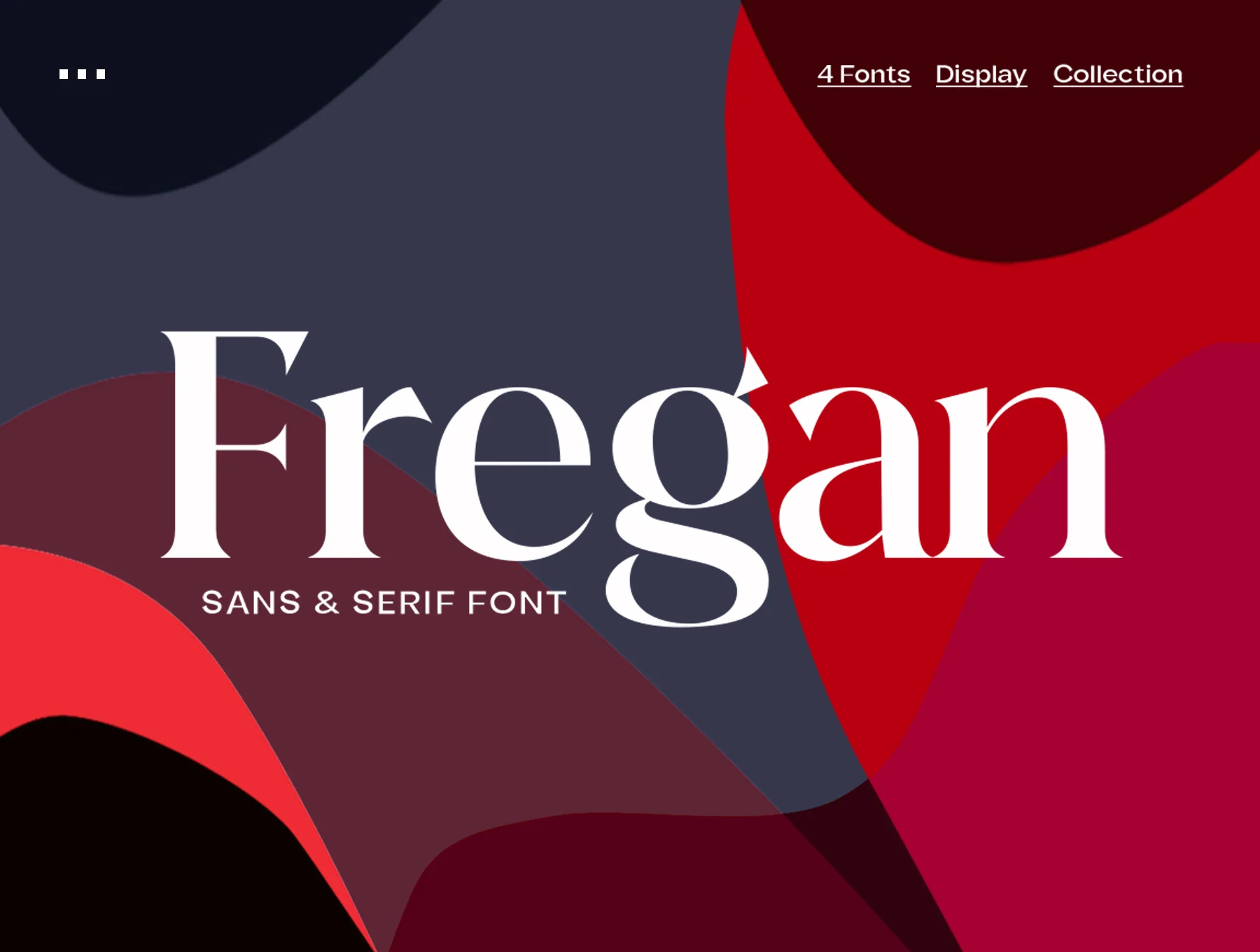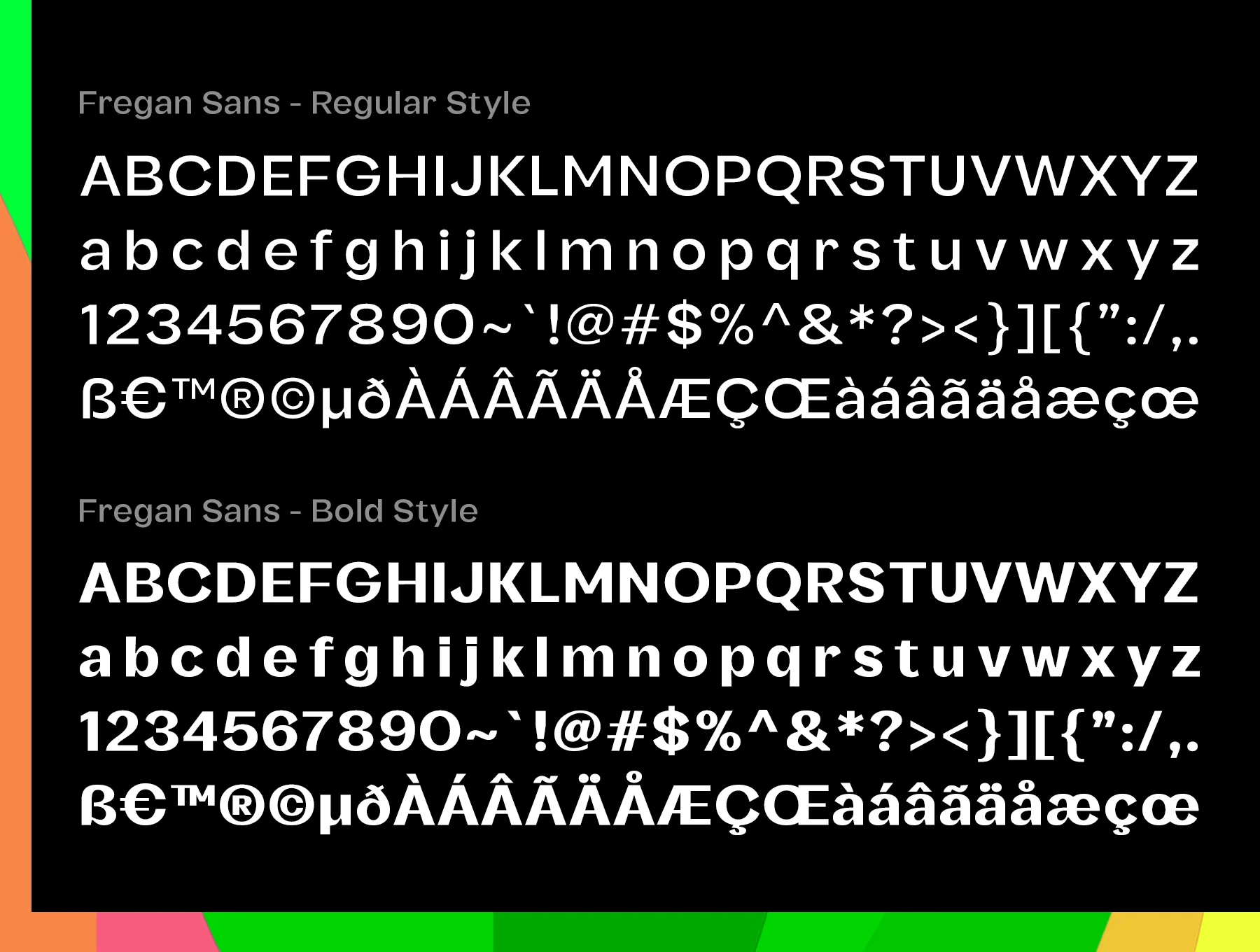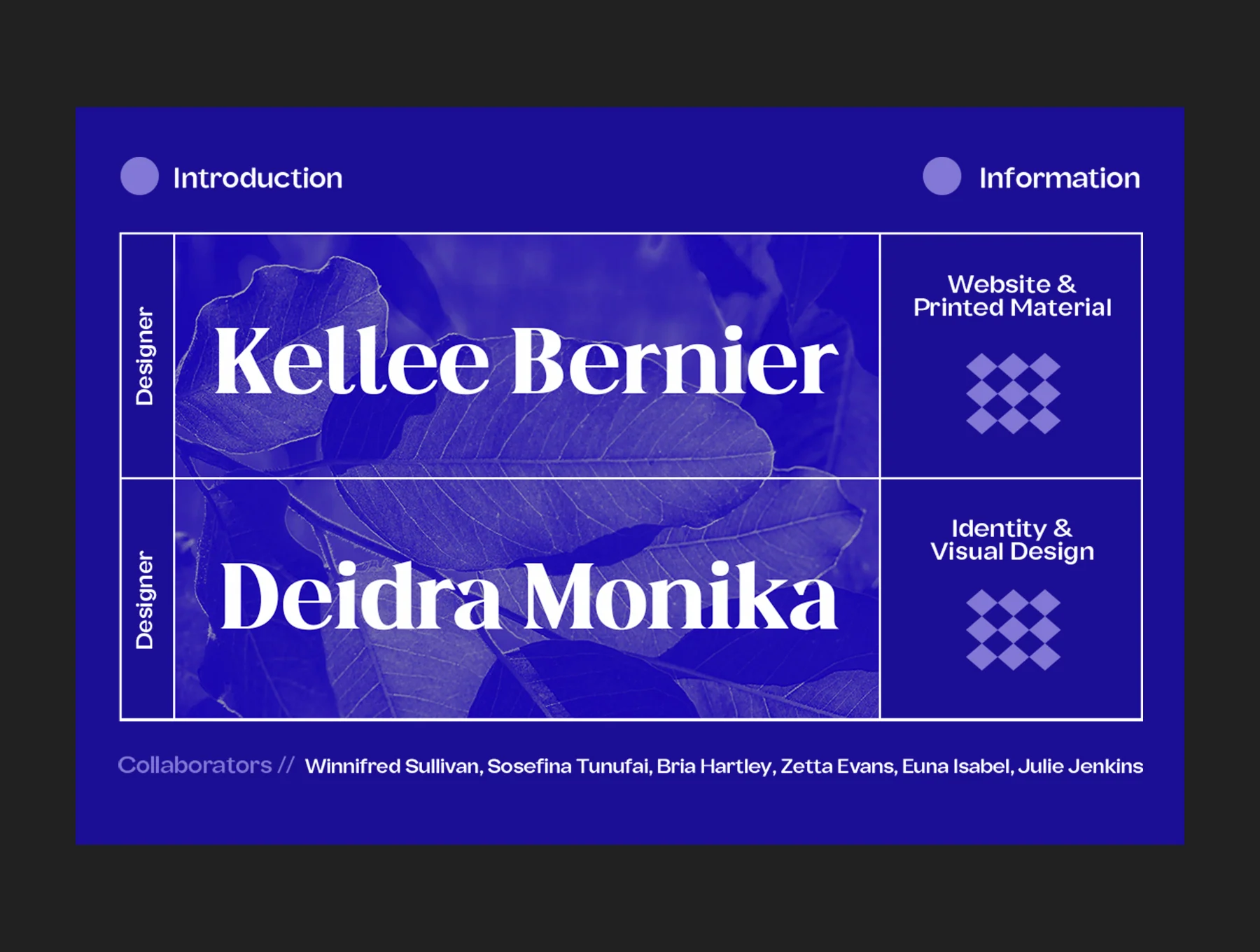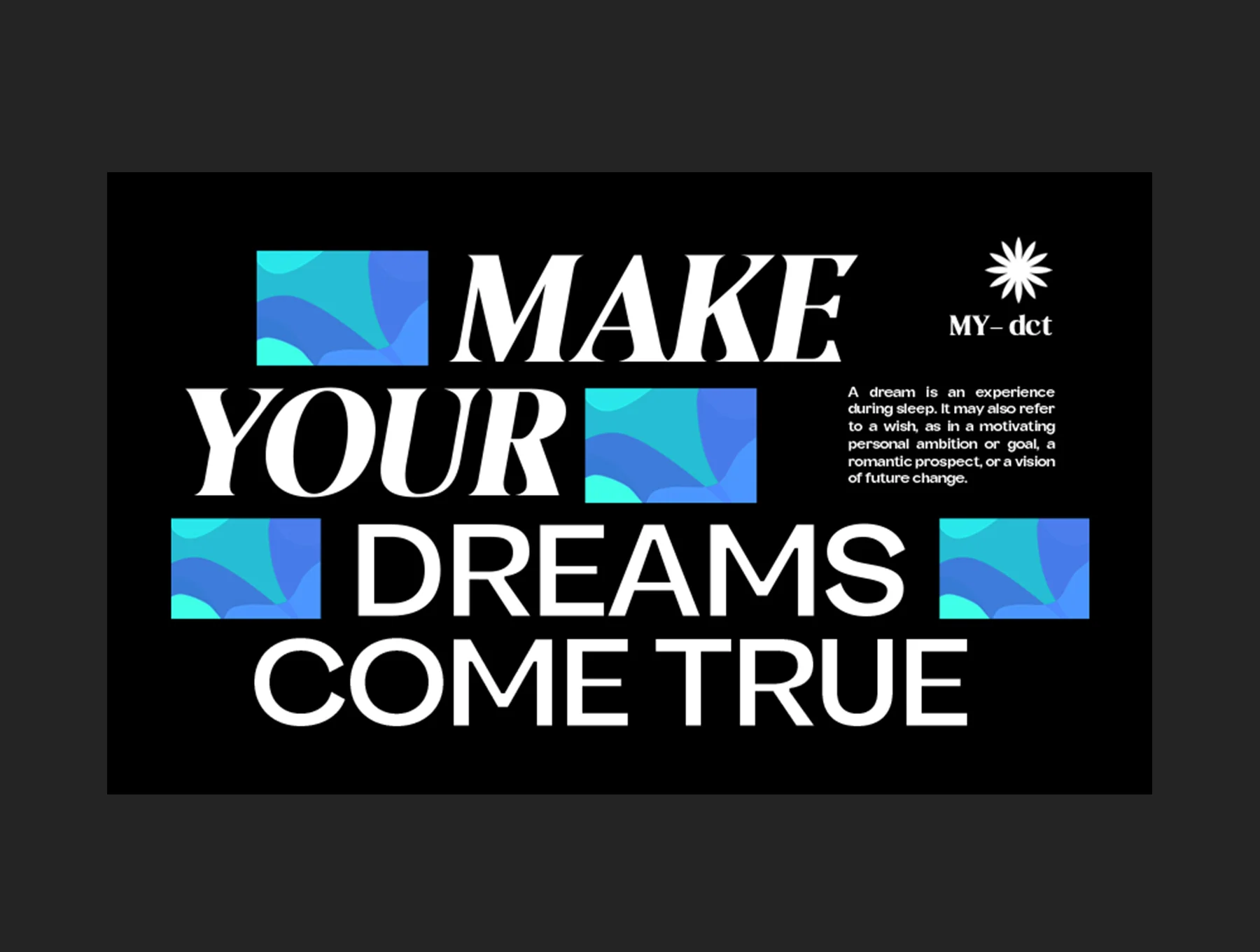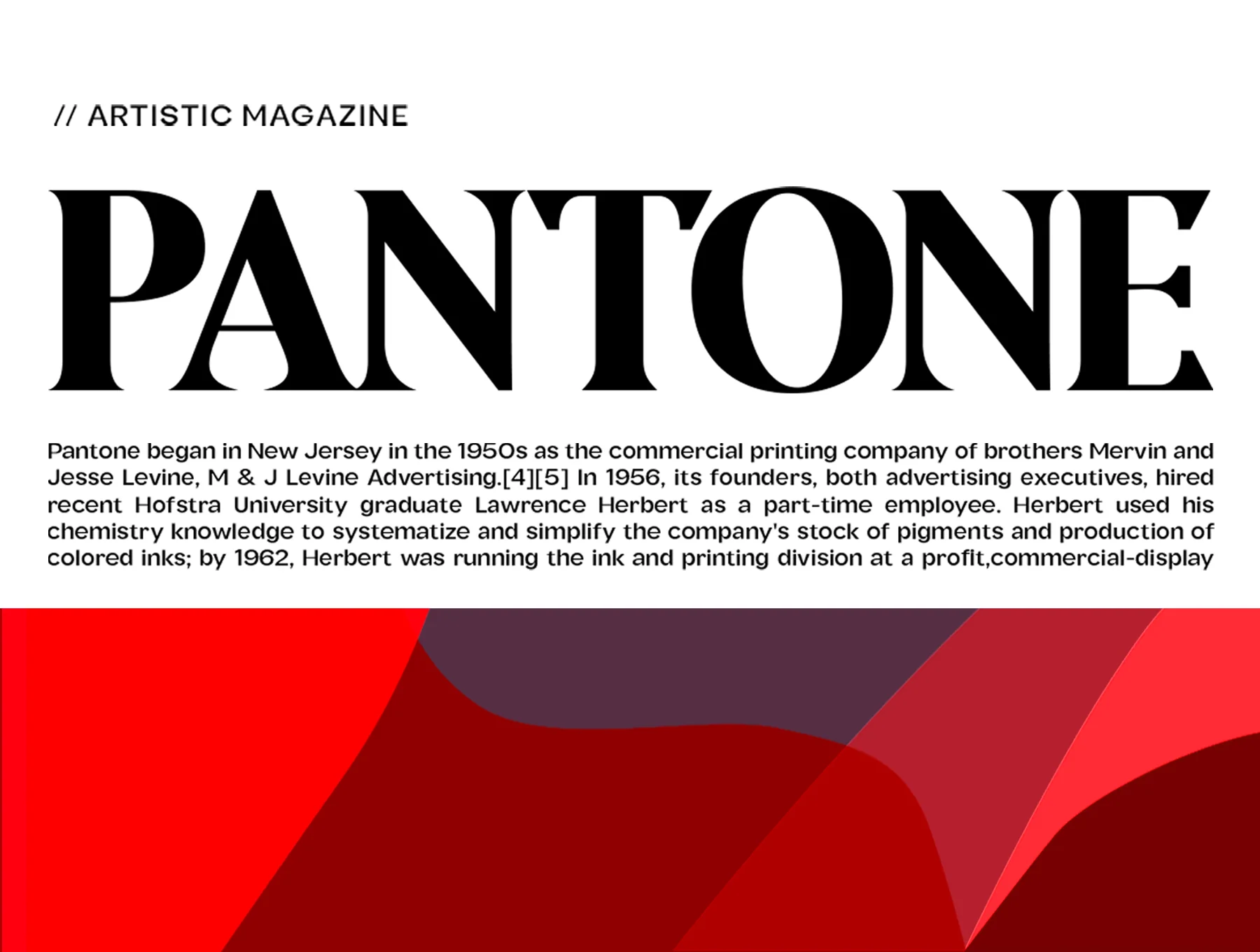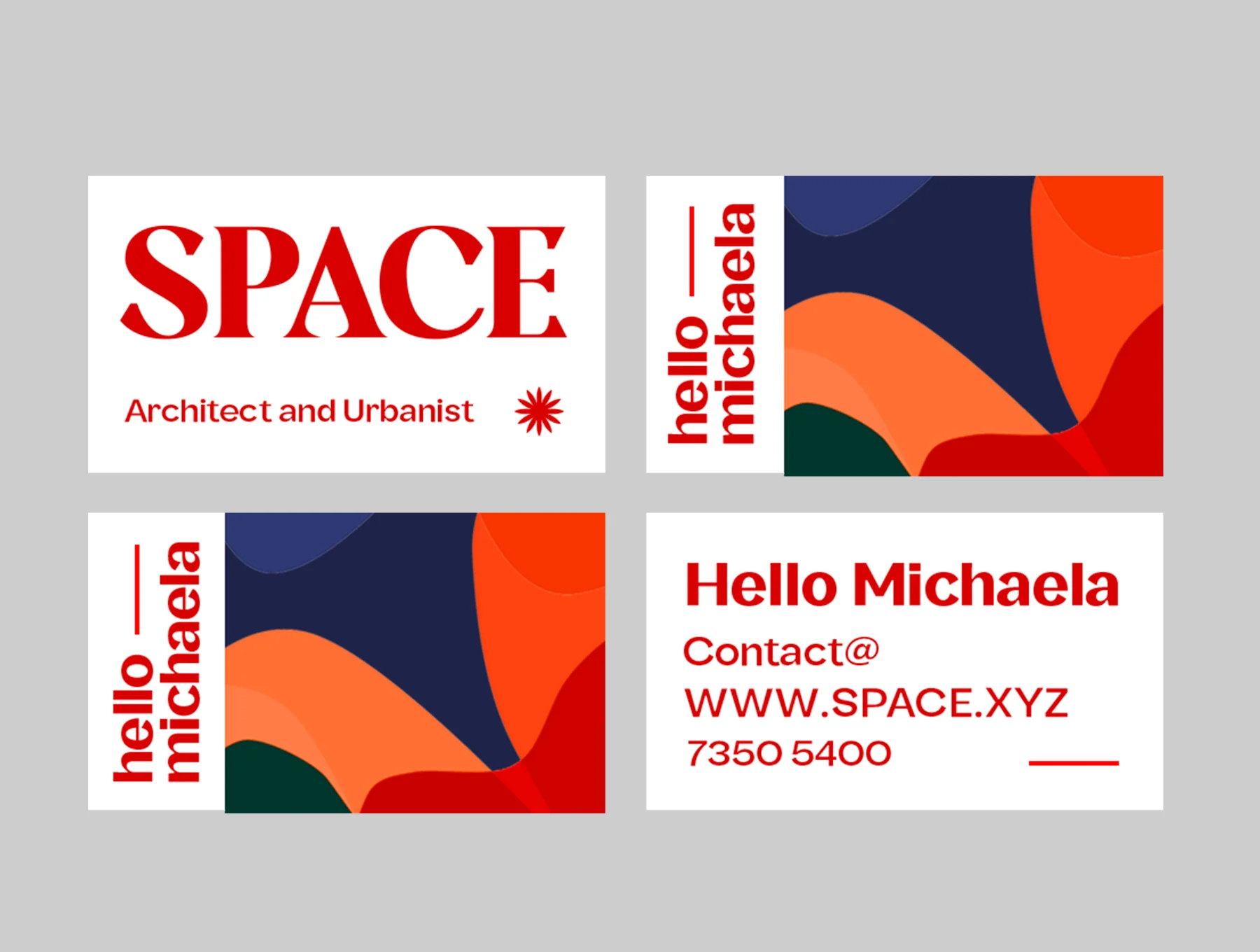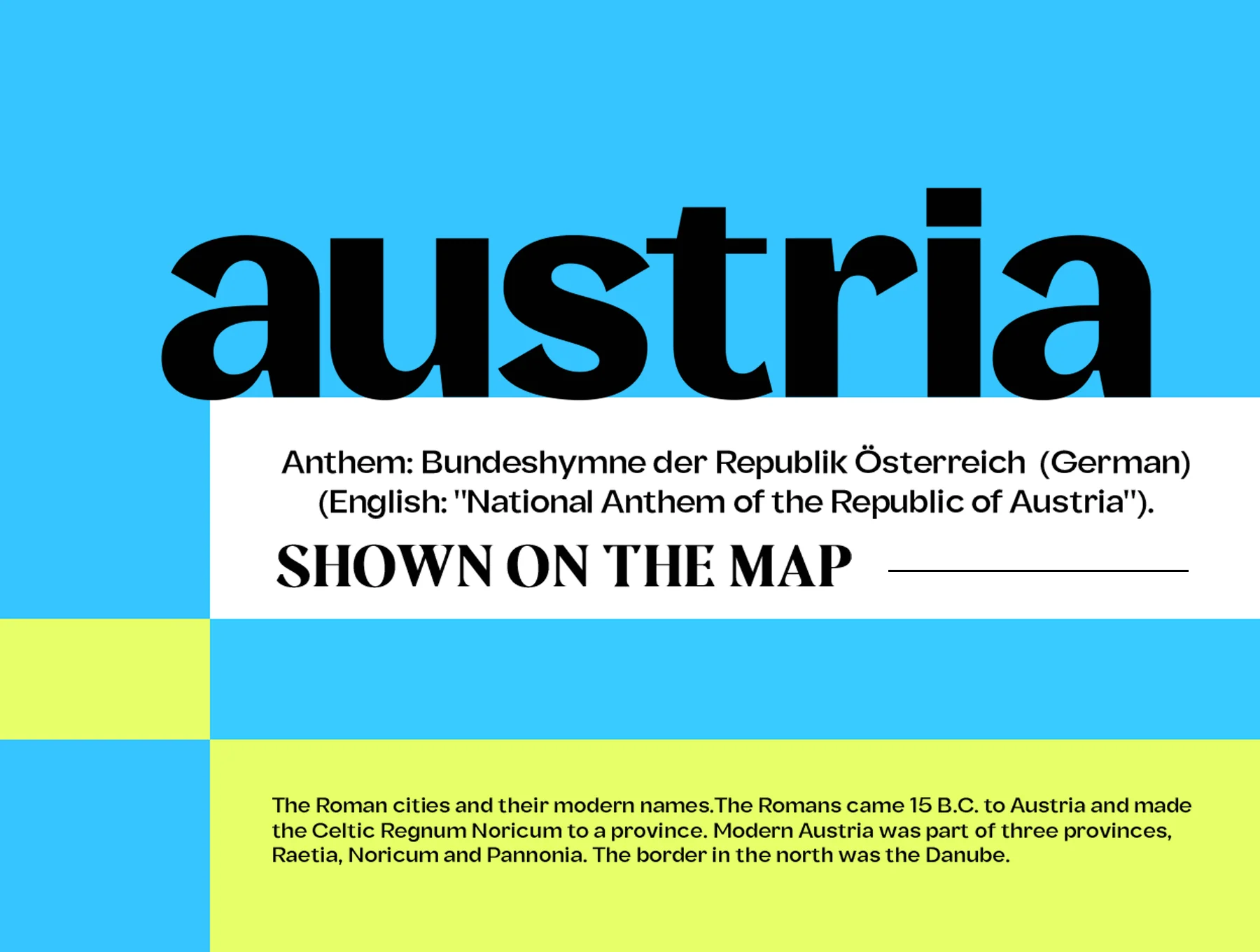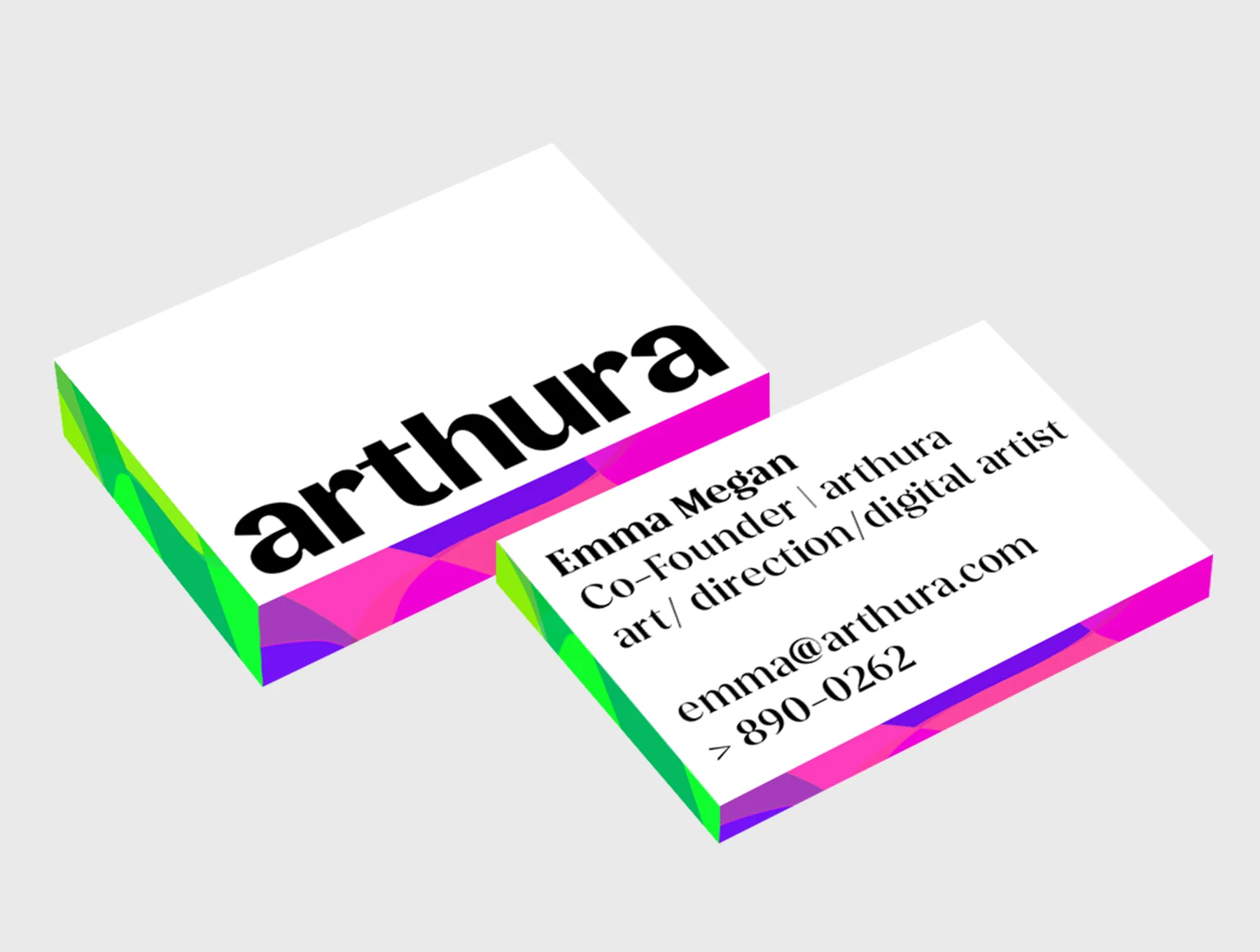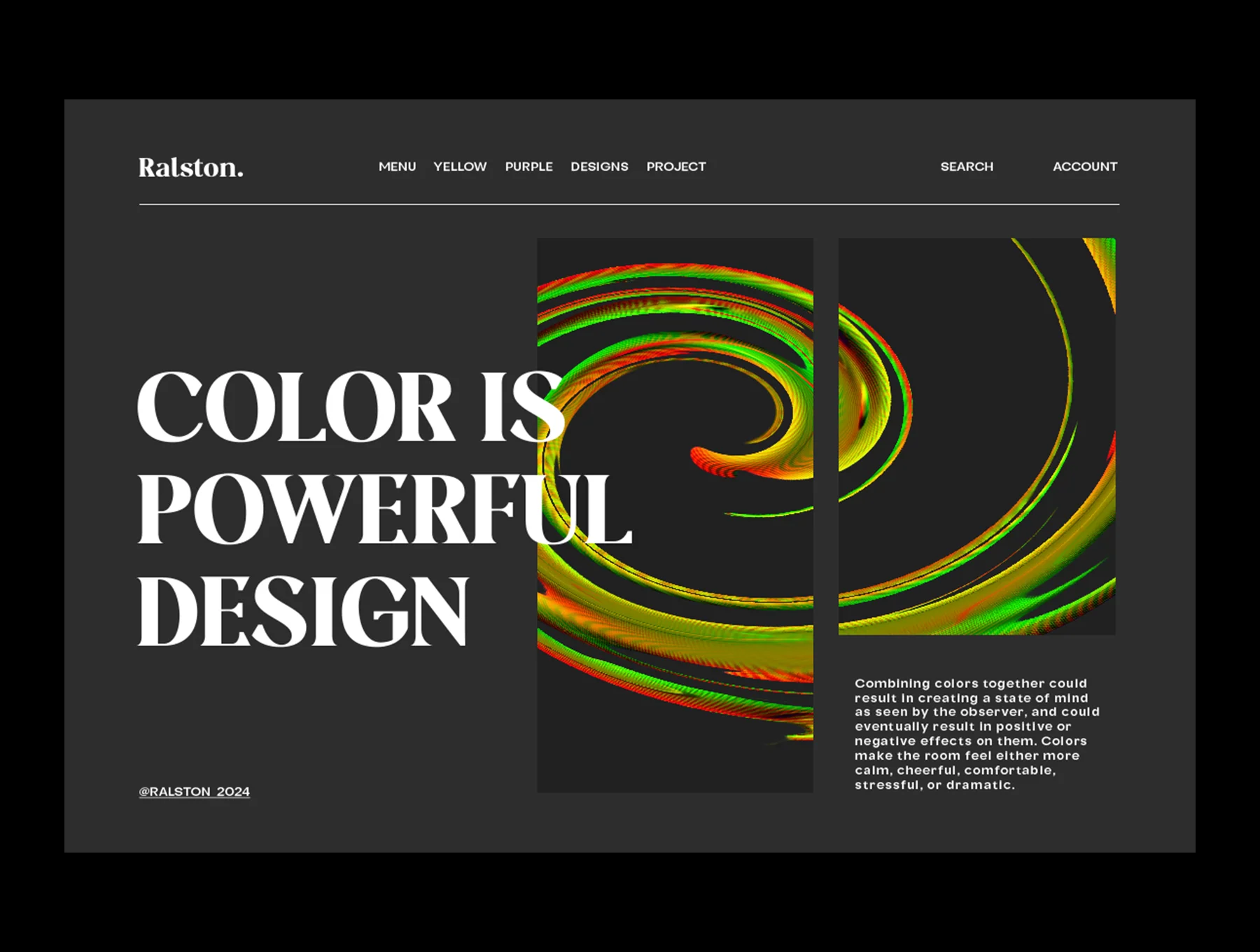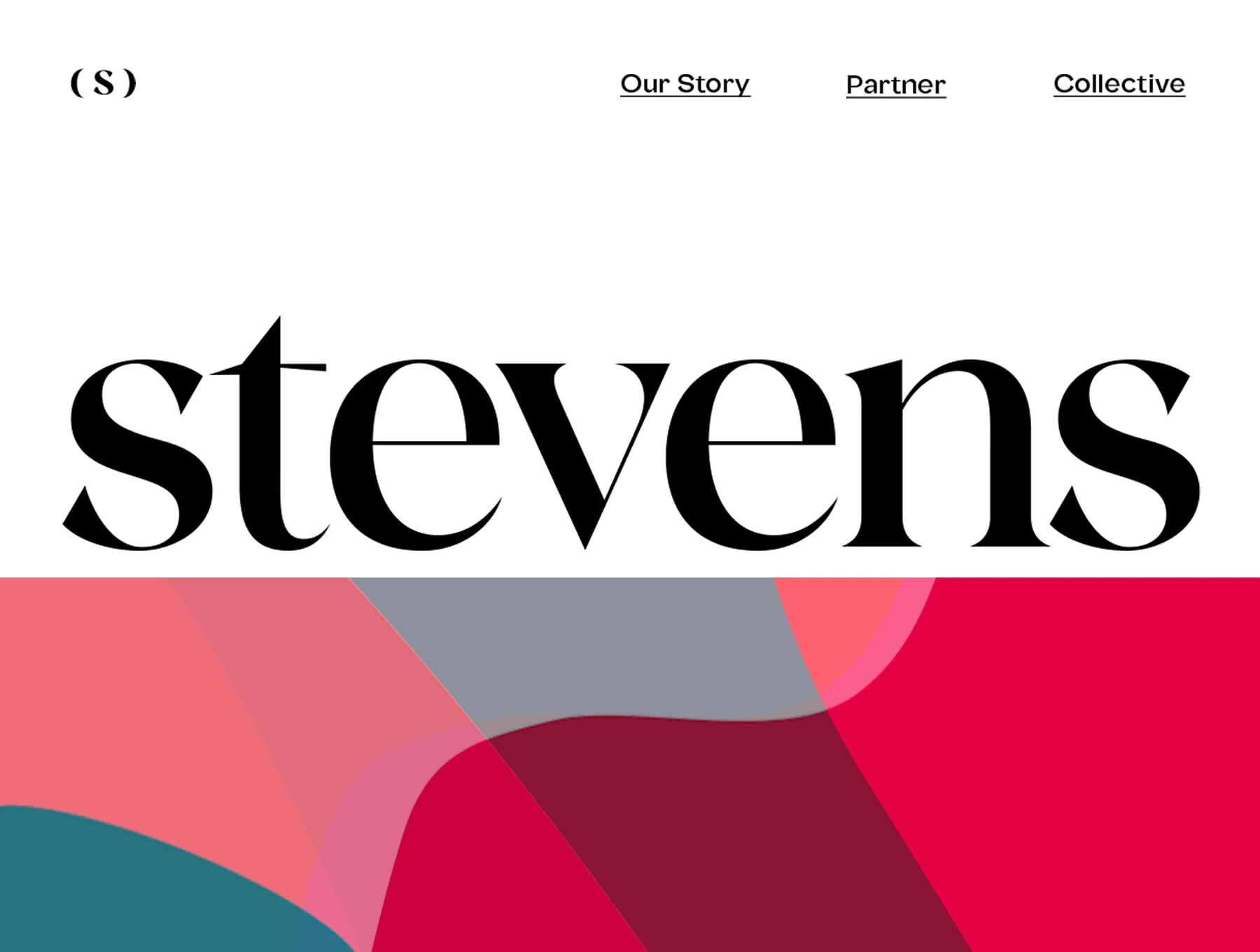
Fregan Typeface
Elegant sharp serif typeface pair.
Sans and serif typefaces
Four styles with regular and bold weights
OpenType functions such as ligatures
Fregan Typeface is a refined serif and sans duo that blends old-style elegance with modern geometry and soft curves. Its Serif and Sans styles pair seamlessly for distinctive branding, logos, magazines, headlines, posters, packaging, cards, wedding invites, and more. Includes Regular and Bold, OpenType ligatures, OTF files, and Latin support.